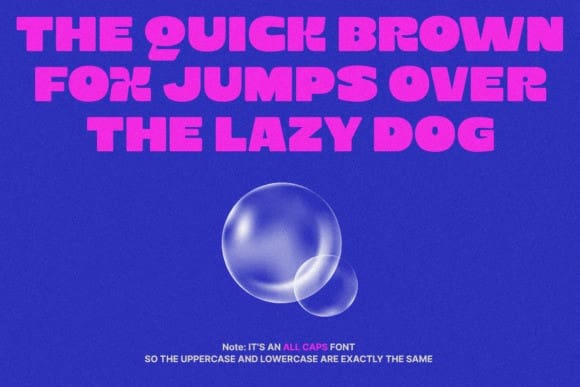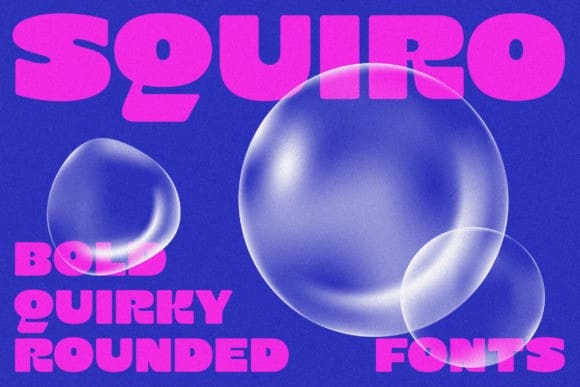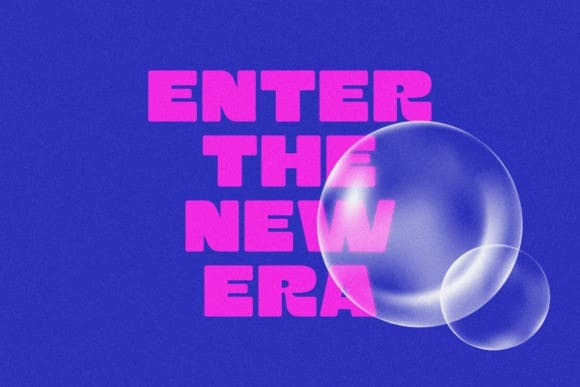
Squiro Font
Squiro Font – a font that dares to be different. With its bold, wide square silhouette and rounded corners, Squiro brings a quirky, experimental vibe to your designs. Each letter is crafted to stand out, making it perfect for projects that demand attention and creativity.